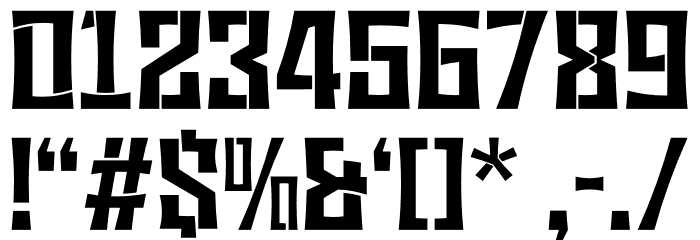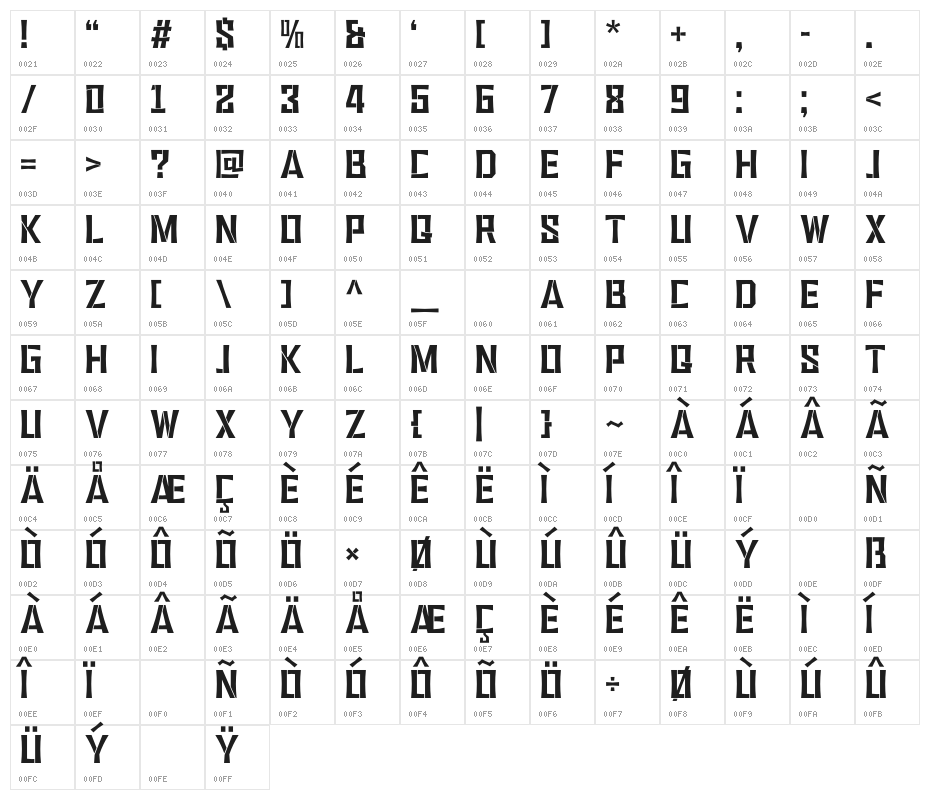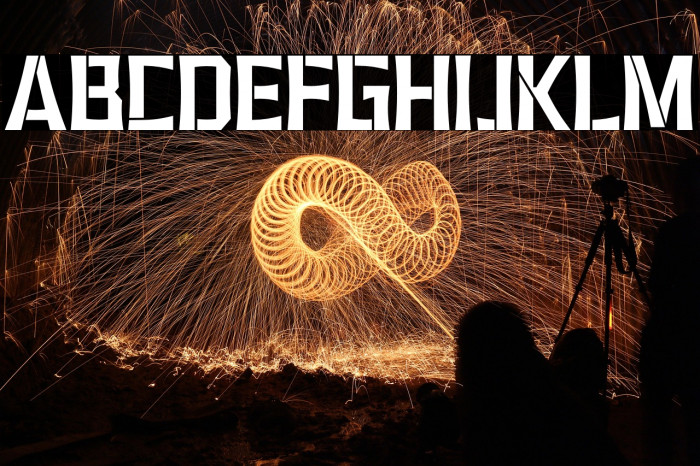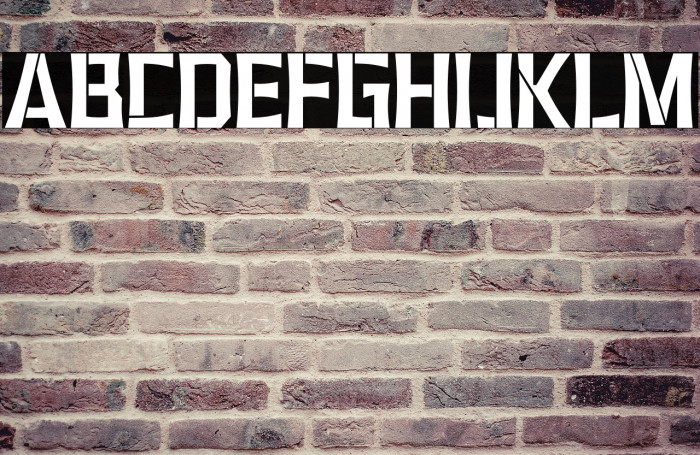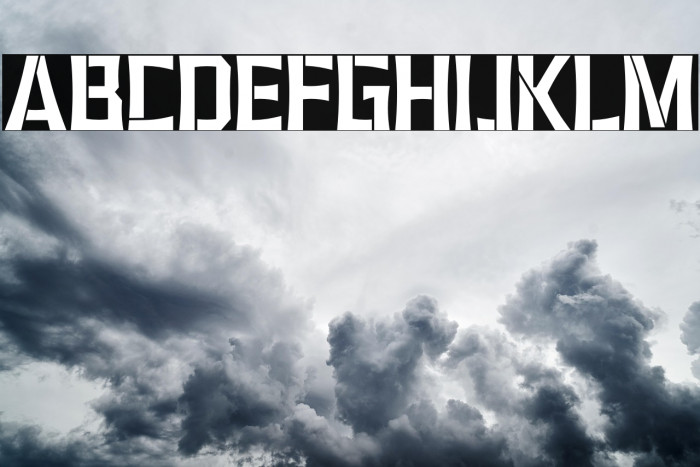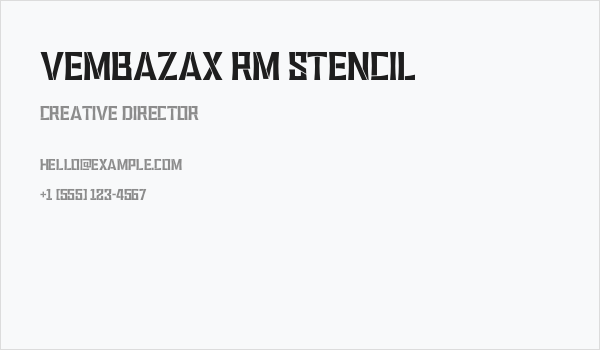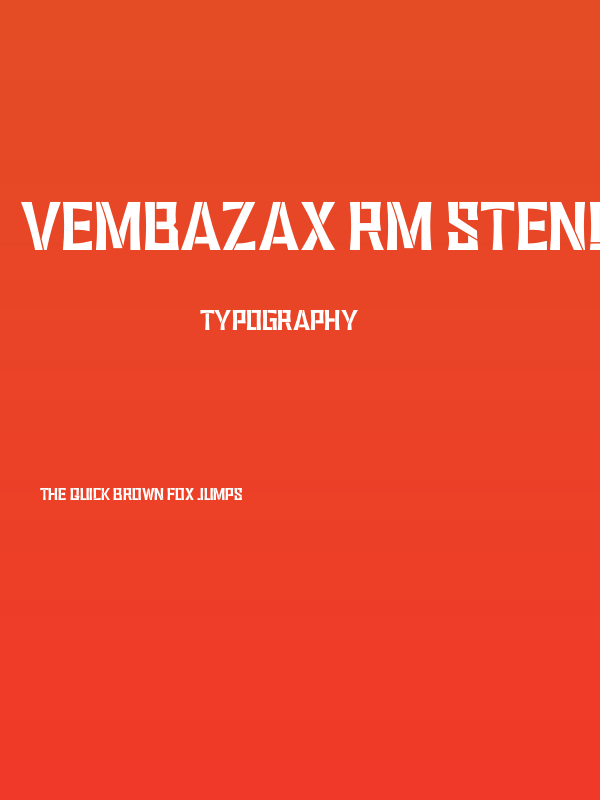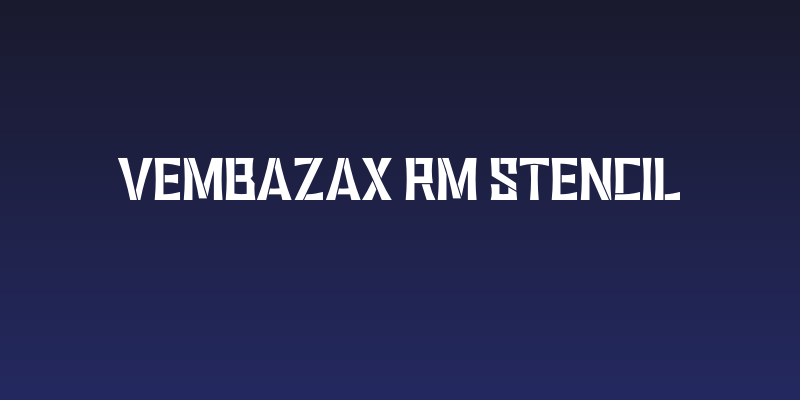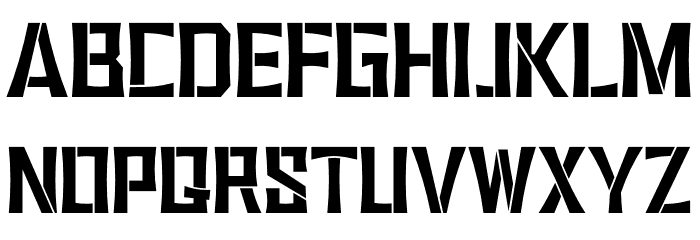
VEMBAZAX RM STENCIL Font
VEMBAZAX RM STENCIL Description
This font features a bold, stencil-like design with sharp, angular edges and a geometric structure. The uppercase letters are particularly striking, with a strong presence and a modern, industrial feel. The numbers and special characters maintain this aesthetic, providing a cohesive look across all glyphs. The font's style is reminiscent of military or industrial stencils, making it ideal for projects that require a bold and impactful visual statement. Its unique cut-out sections within each character add to its distinctive appearance, making it stand out in any design.